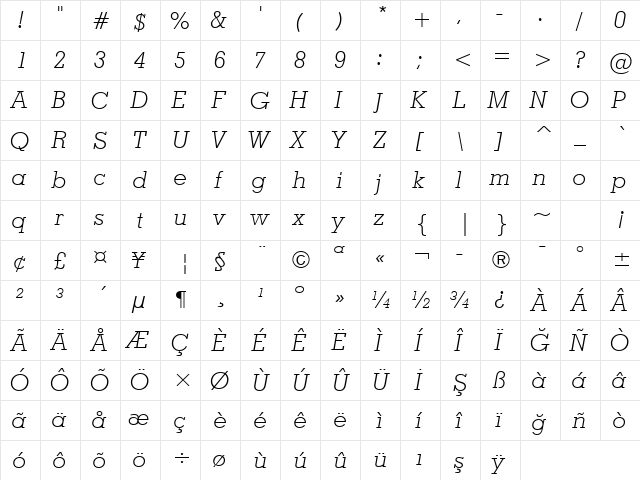
Louisville BT Light Italic Font Preview
Louisville BT Light Italic
Design Context for Louisville BT Typeface
Louisville BT offers clean, dependable letterforms without strong stylistic allegiance, making it a practical choice for designers who need flexibility. Its italic angle brings a sense of urgency and motion to the letterforms. The delicate stroke weight brings airiness and refinement to layouts.
Pro Tip: Use Louisville BT for emphasis, pull quotes, and subheadings where its slanted energy can add rhythm to the layout.